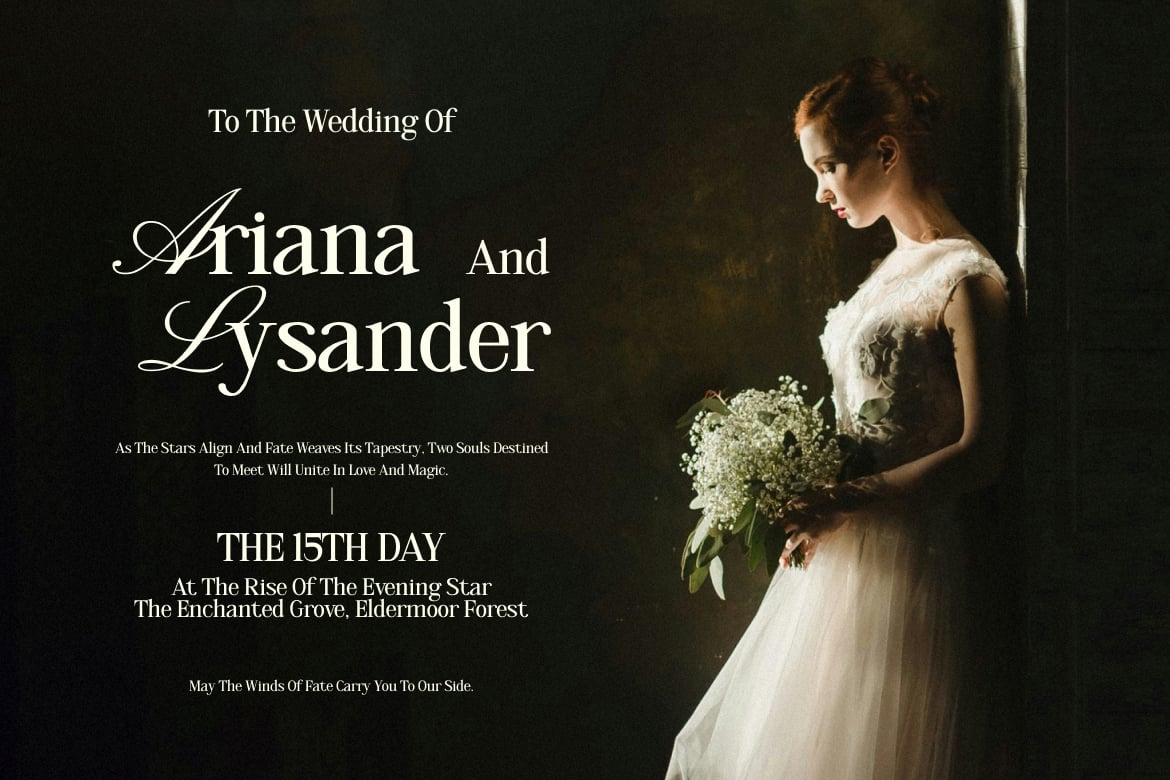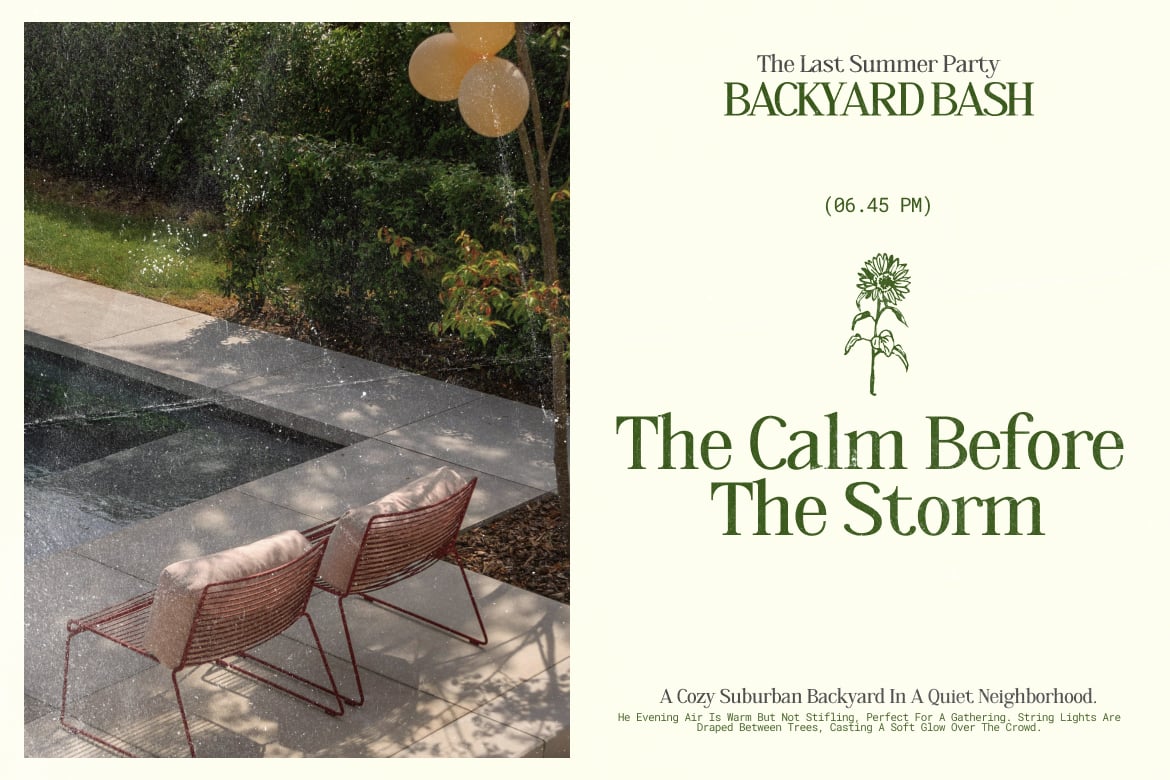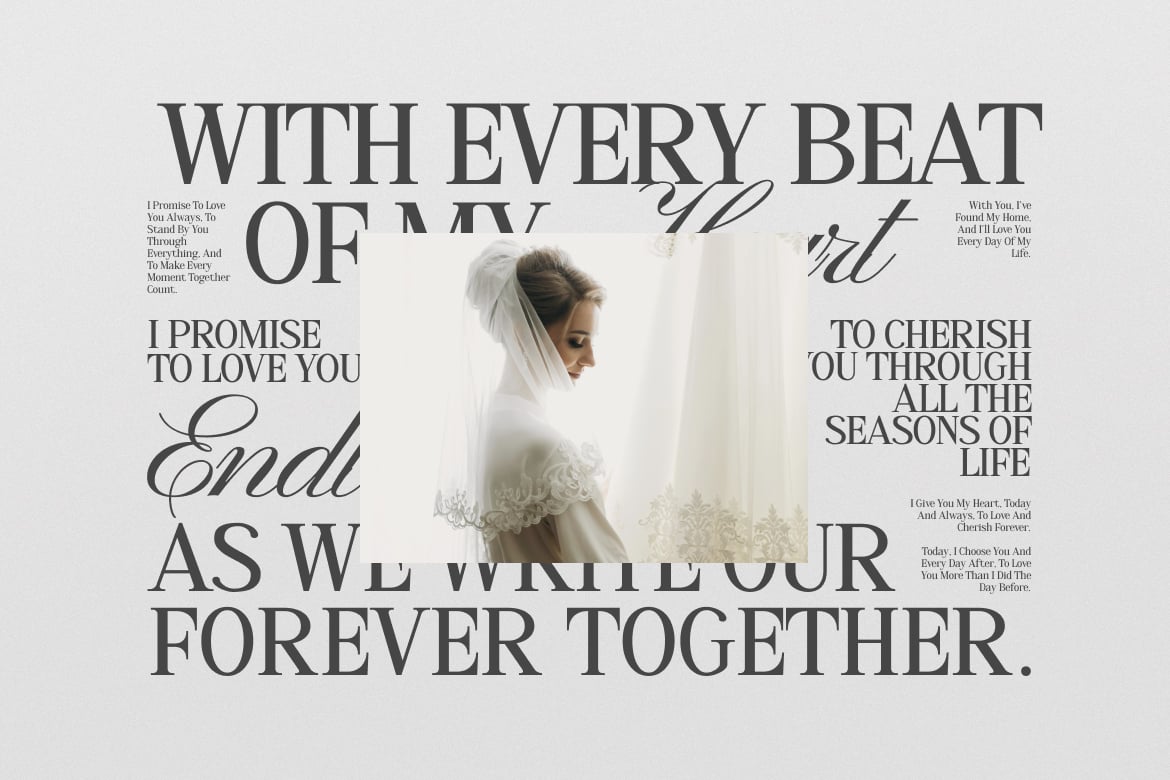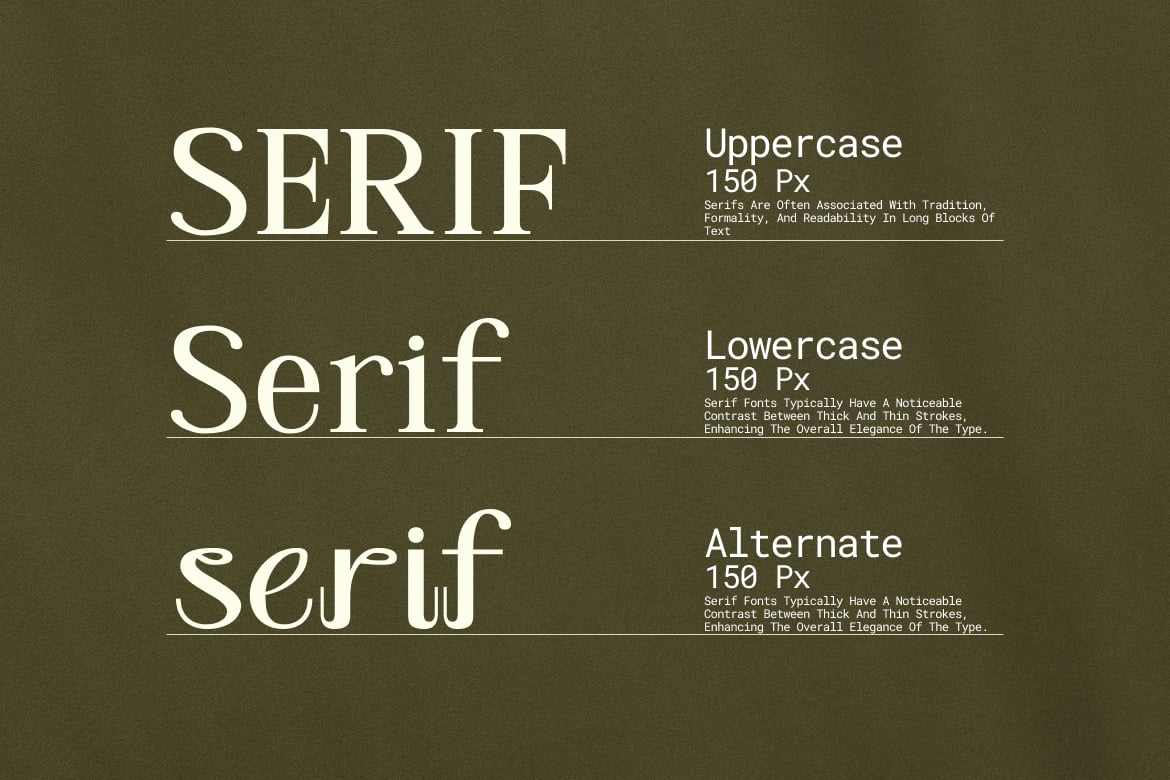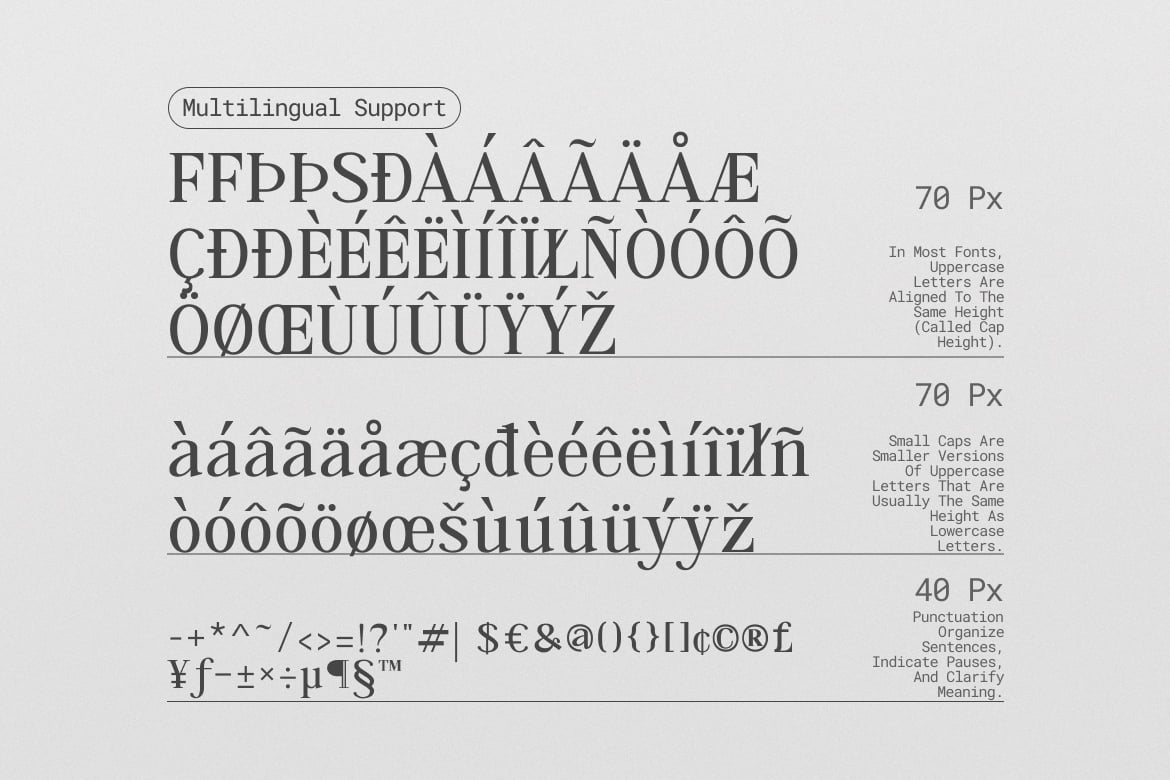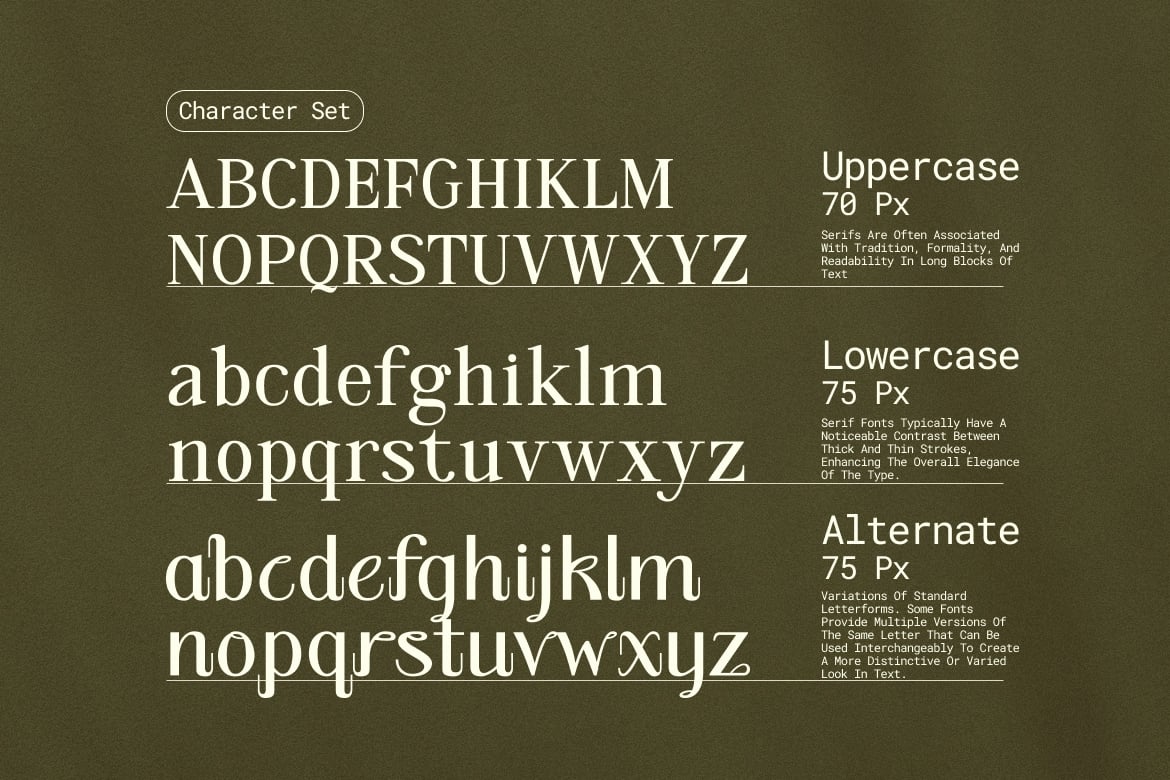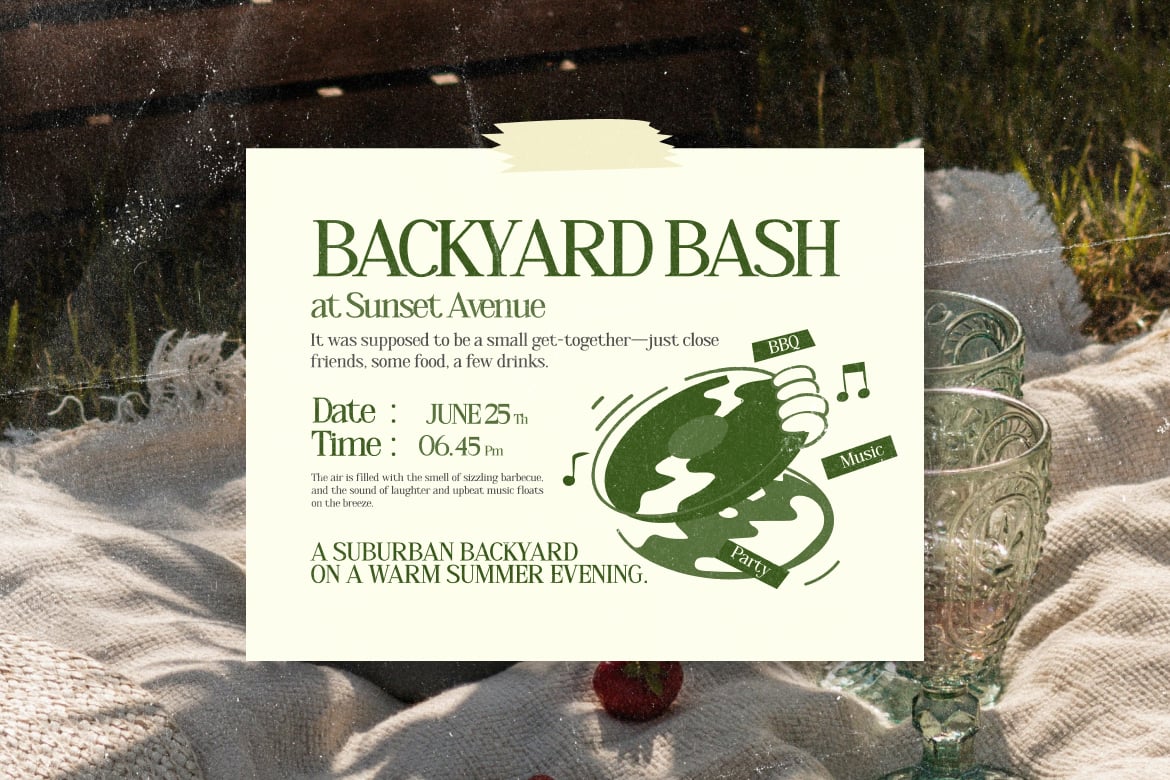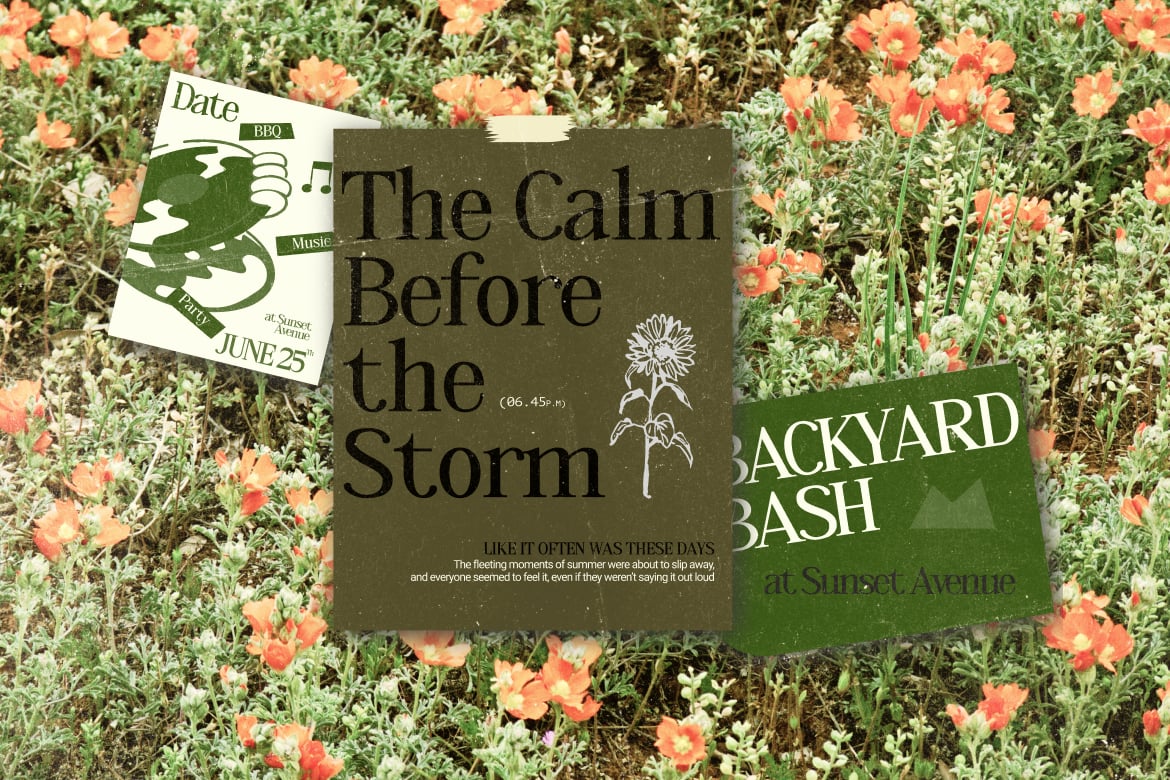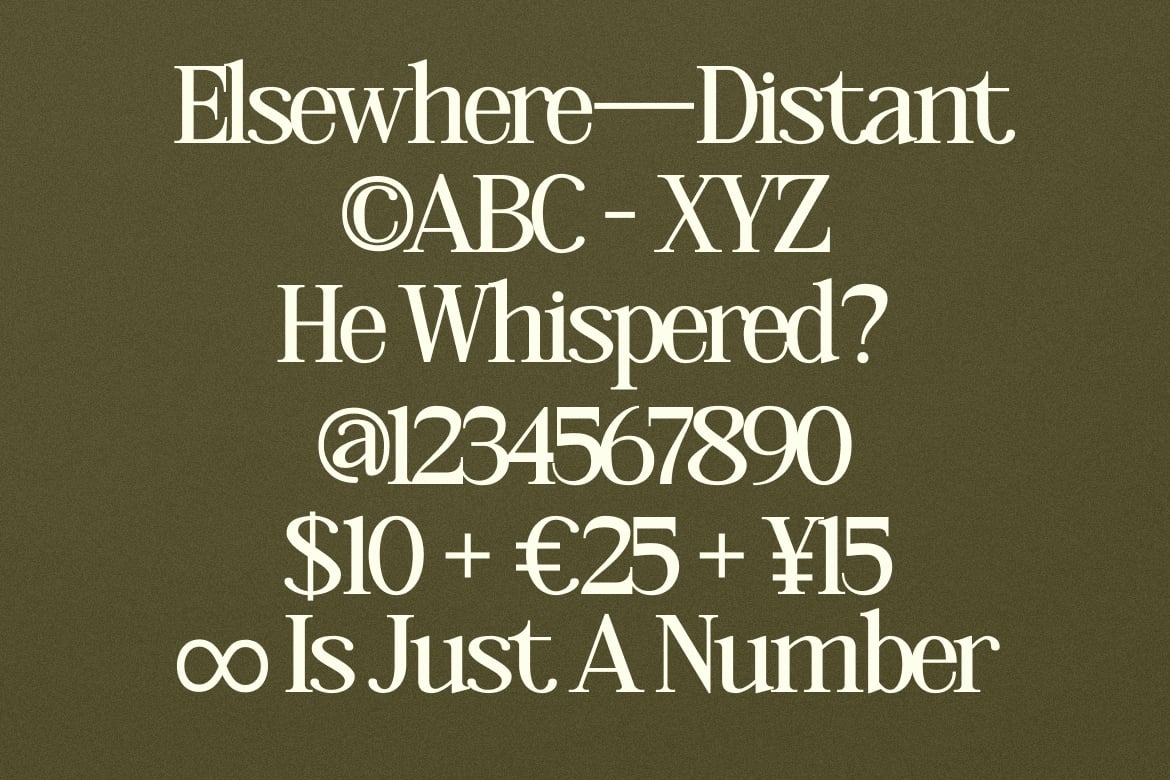
Pabre – Luxury Branding Font
is a premium luxury font designed to bring elegant sophistication to your branding and design projects. Crafted with modern serif features, this font offers a sleek, stylish, and professional touch for logos, marketing materials, packaging, and digital applications.
Whether you’re working on a luxury brand, Pabre will give your design a refined edge. It’s ideal for use in high-end logos, advertisements, e-commerce, event invitations.
Font Features:
- Clear and Versatile Design: Offers easy readability with a modern style that stands out in both digital and print mediums.
- Complete Character Set: Uppercase and lowercase characters, numbers, punctuation, and symbols.
- OpenType Features: Access ligatures, and unique stylistic sets to customize your design.
- Multilingual Support: Includes support for multiple languages, including English, Spanish, French, German, Portuguese.
Pabre combines geometric precision to create a striking visual impact while maintaining clarity. Whether you are designing for corporate branding, fashion labels, wedding invitations, this font adapts to your needs and enhances the visual appeal of your design.
Perfect For:
- Luxury Branding: Enhance your upscale brand identity with sophisticated fonts.
- Tech Startups: Give your tech brand a futuristic and sleek look.
- Corporate Identity: Bring professionalism to your corporate designs.
- Creative Ventures: Perfect for high-impact projects in the creative industry.
- Event Invitations: Create elegant, eye-catching event materials.